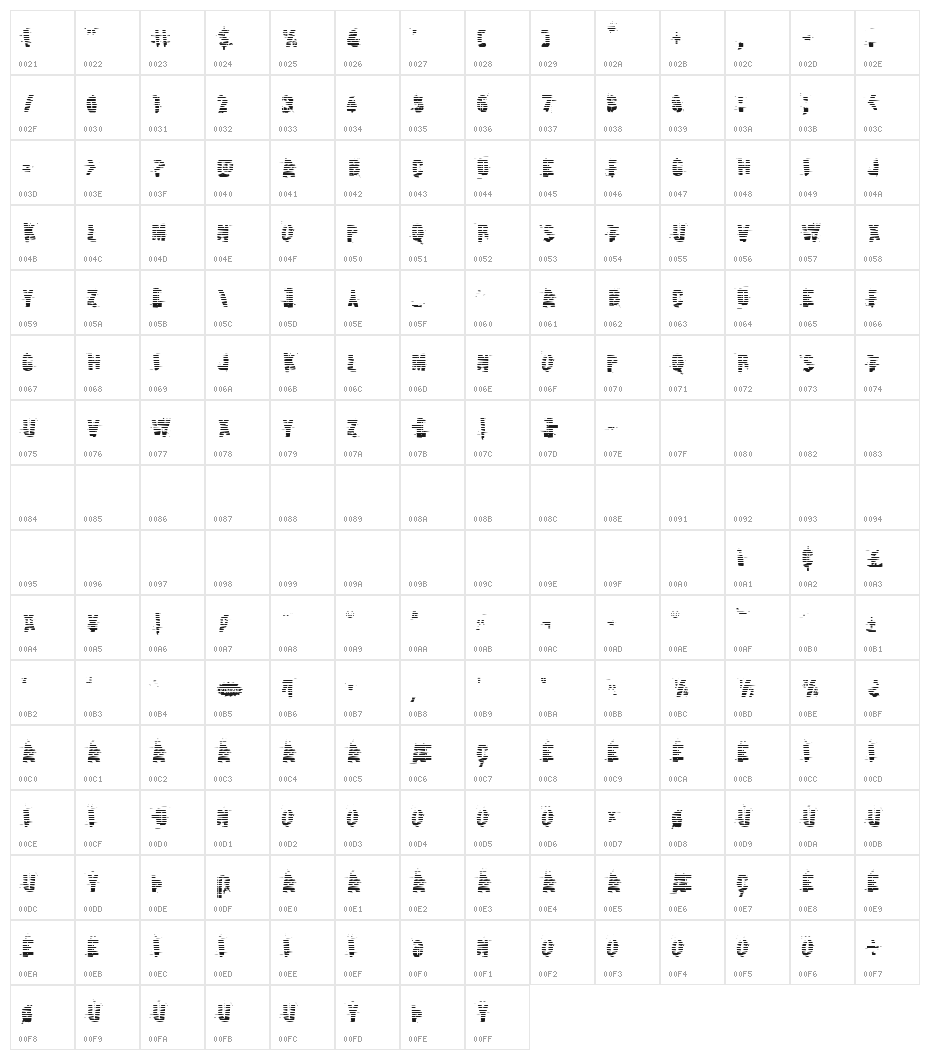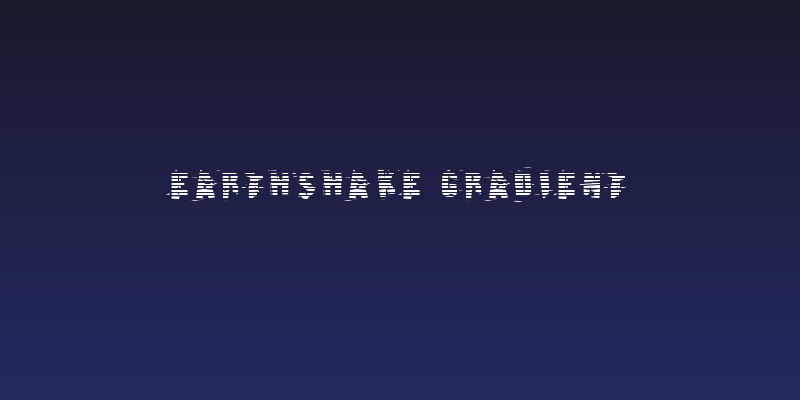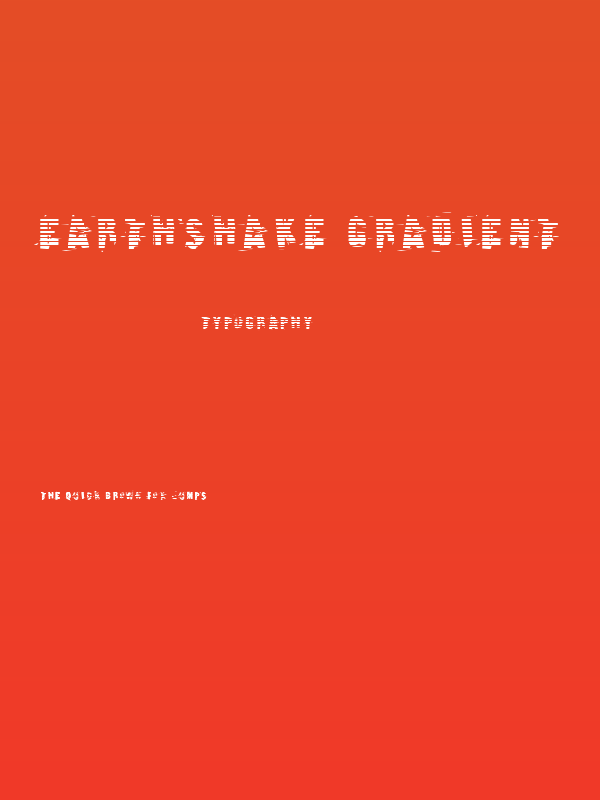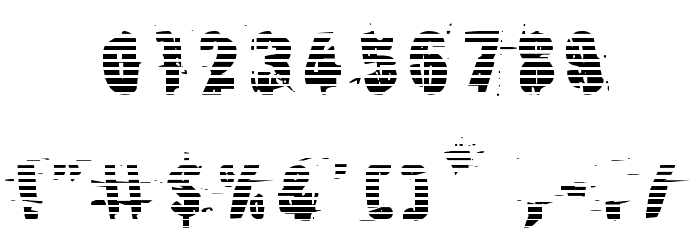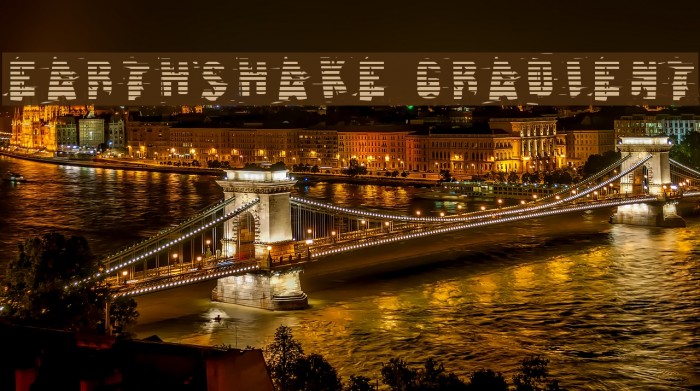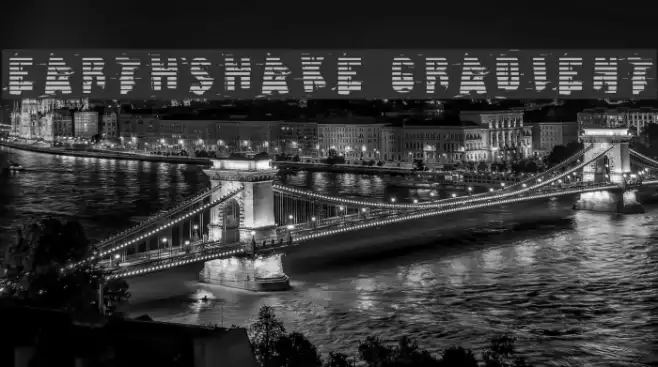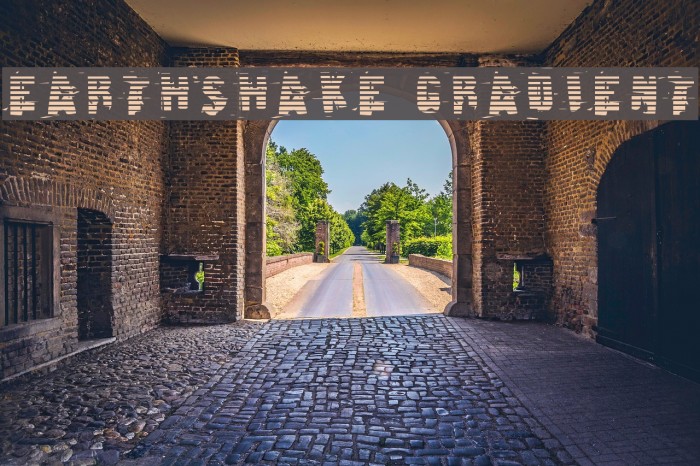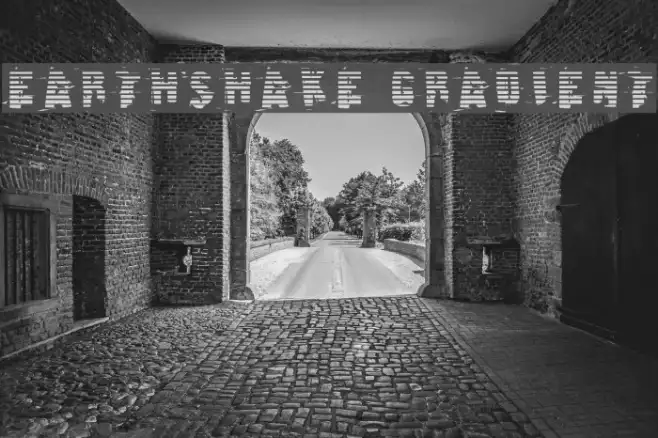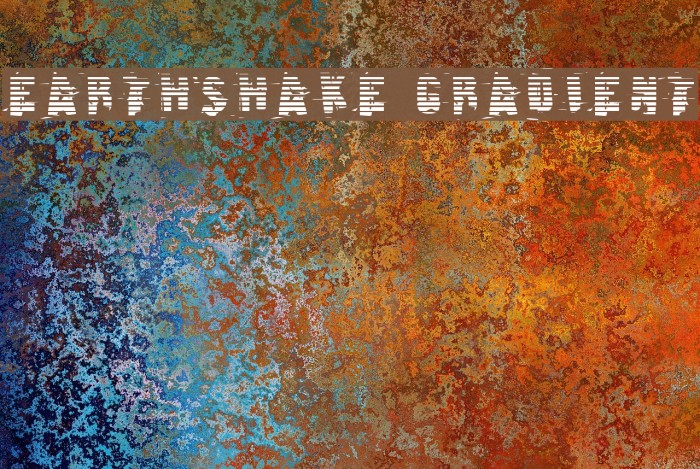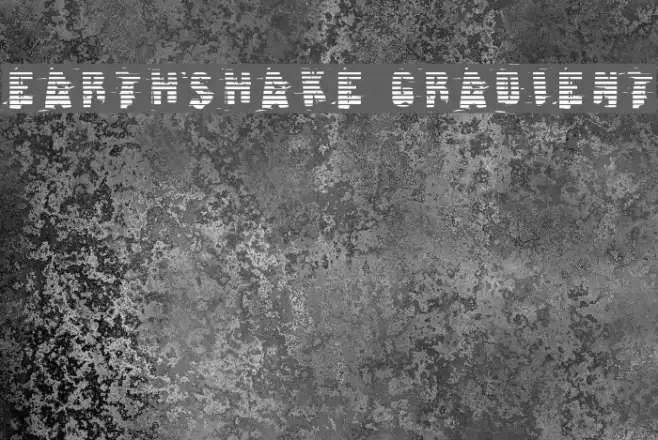
Earthshake Gradient Font
Earthshake Gradient Description
This font features a bold, distressed style with a unique gradient effect that gives the appearance of horizontal lines cutting through each character. The uppercase and lowercase letters maintain a consistent width, creating a cohesive look. The numbers and special characters follow the same design, ensuring uniformity across all glyphs. This font's distinct, edgy appearance makes it stand out, ideal for projects that require a strong visual impact. The distressed lines add a sense of movement and energy, making it suitable for dynamic and modern designs.
| Proposed Projects | Ideal for posters, album covers, branding, and any project needing a bold, edgy look. |